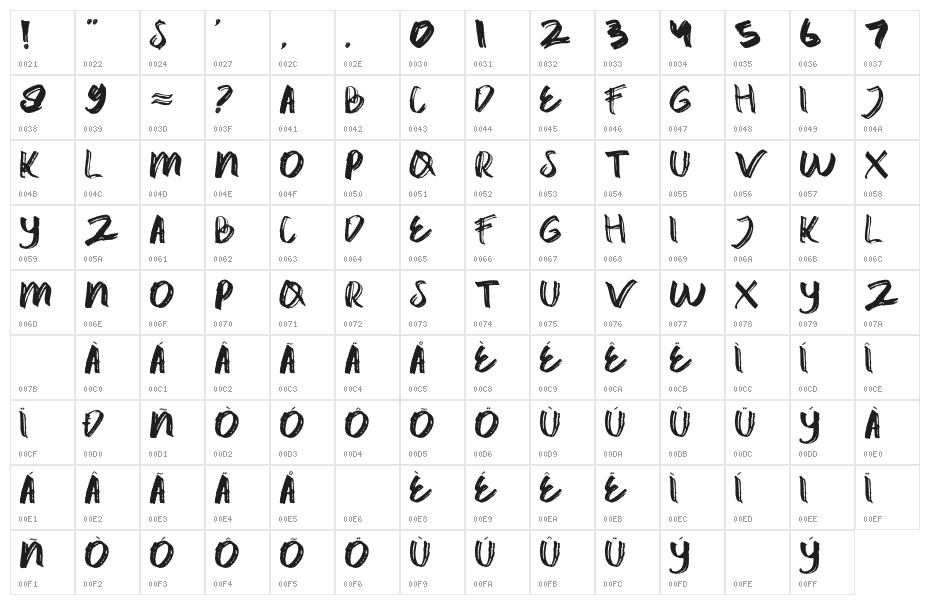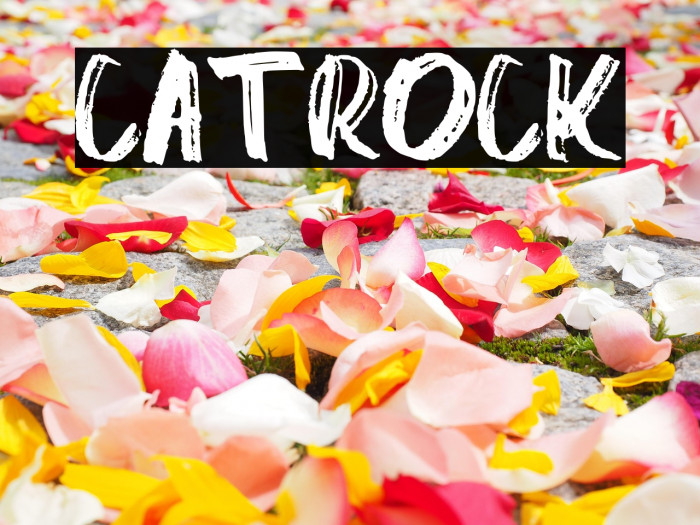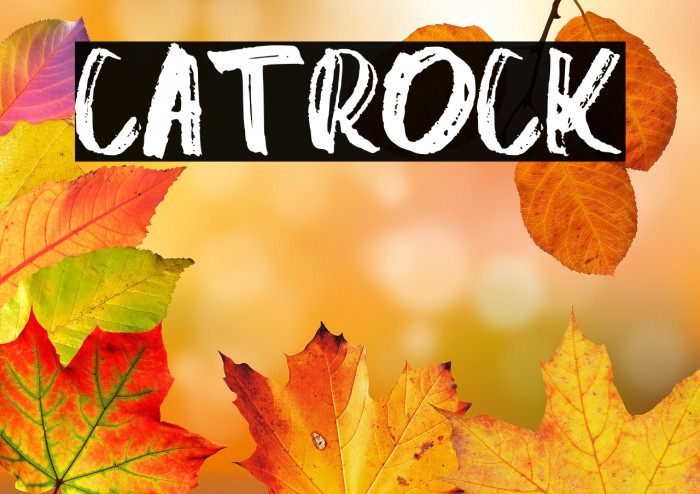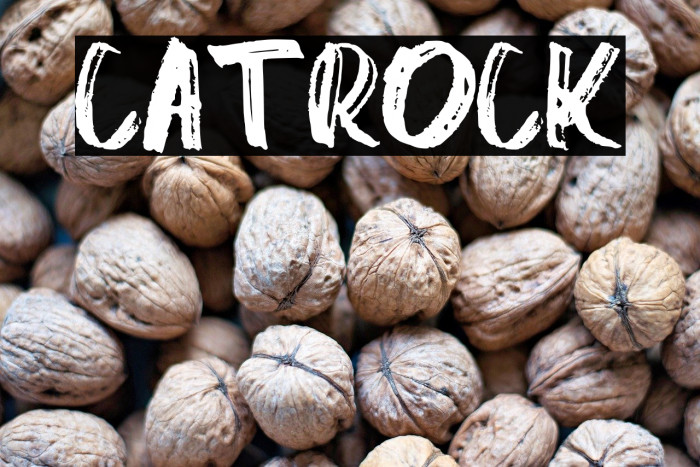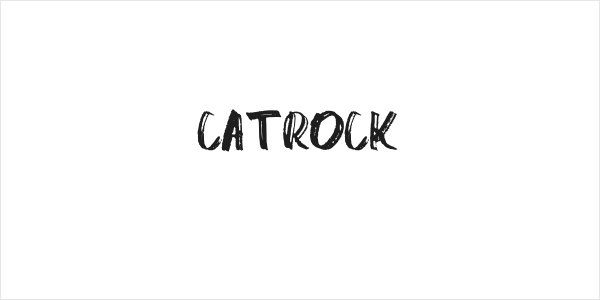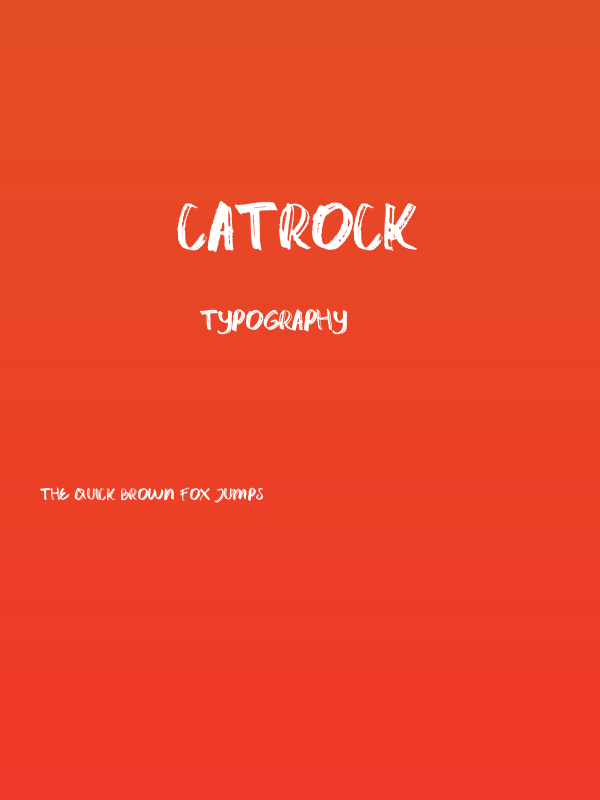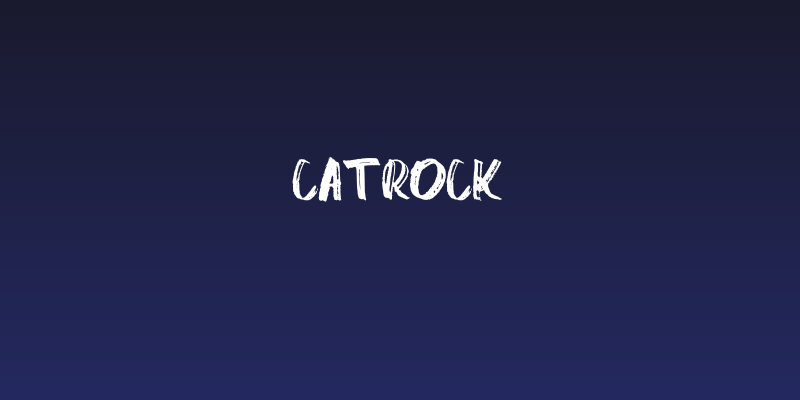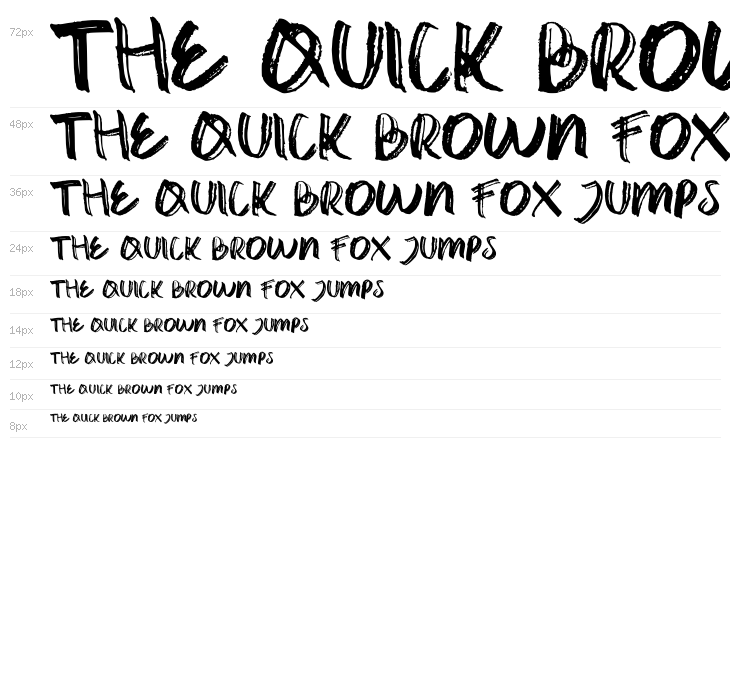
catrock Font
catrock Description
This font exudes a bold and expressive style, characterized by its brush-like strokes and dynamic flow. The letters are crafted with a sense of movement, giving each character a unique and artistic flair. The uppercase and lowercase letters maintain a consistent style, with thick, uneven strokes that suggest a hand-painted aesthetic. The numbers and special characters follow suit, adding to the font's cohesive and creative appearance. This font is perfect for projects that require a personal touch or an artistic edge, making it ideal for creative branding, posters, and artistic endeavors.
| Overall Style | Artistic, Expressive |
| Proposed Projects | Ideal for creative branding, posters, artistic projects, and any design requiring a personal touch. |